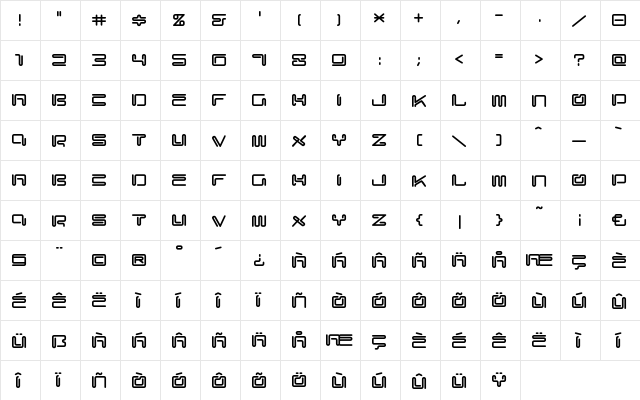
CyberMonkey Regular
Design Context for CyberMonkey Typeface
CyberMonkey channels digital-age aesthetics through its sharp, structured letterforms — ideal for brands that want to signal innovation.
Pro Tip: Use CyberMonkey in combination with a neutral sans for body text. Let it define the brand voice in headlines while keeping reading comfortable elsewhere.